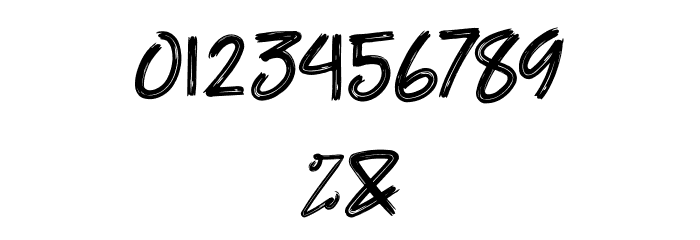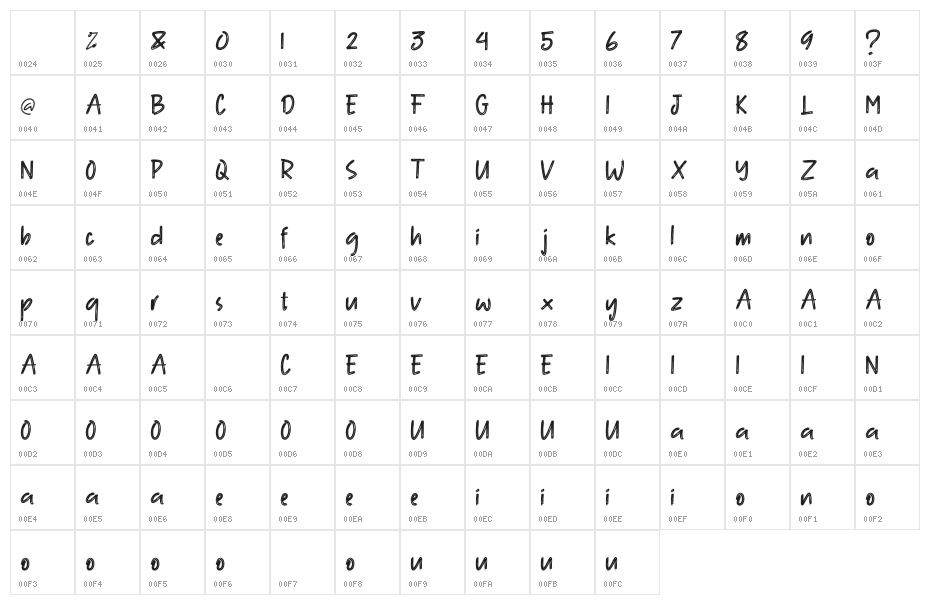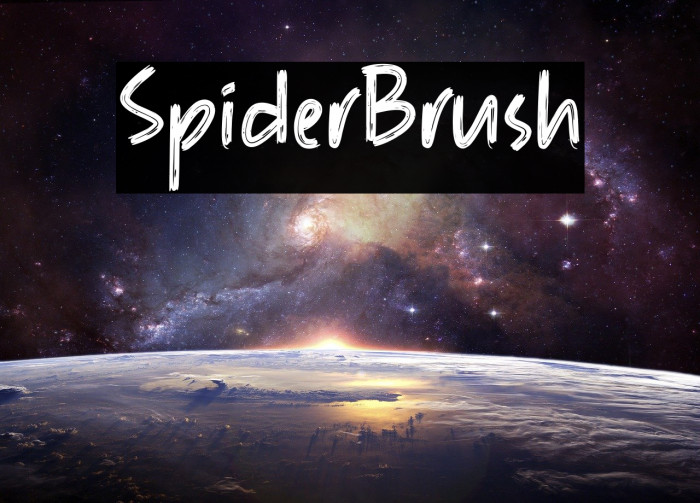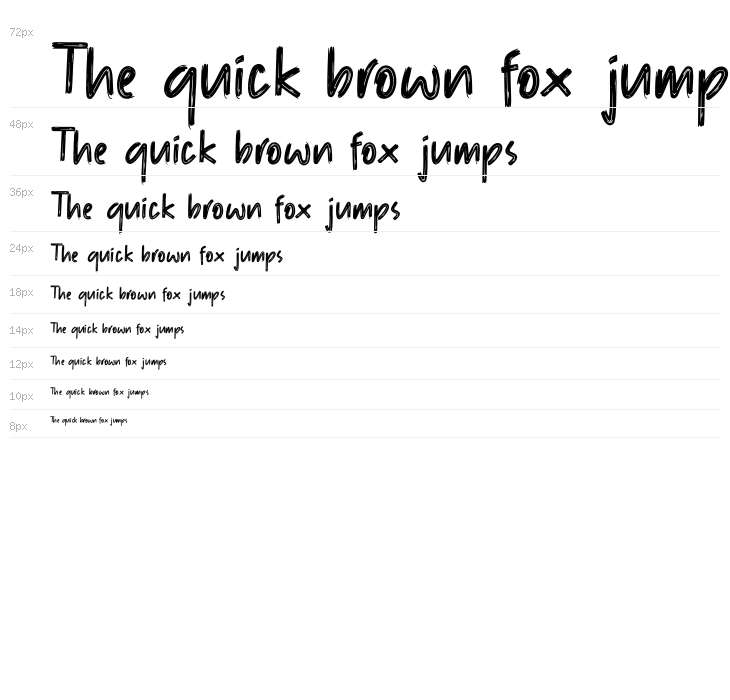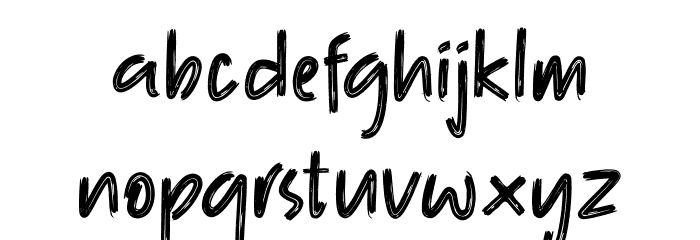
SpiderBrush Font
SpiderBrush Description
This font features a dynamic and energetic brush style, characterized by its bold and expressive strokes. The letters have a hand-drawn appearance, with irregular edges and varying line thickness that give it a lively and spontaneous feel. The uppercase and lowercase letters maintain a consistent style, with the uppercase being slightly more pronounced. The numerals and special characters follow the same brush-like aesthetic, ensuring a cohesive look across all characters. This font is ideal for projects that require a personal and artistic touch, such as posters, invitations, and branding materials.
| Proposed Projects | Ideal for artistic projects like posters, invitations, and branding materials. |